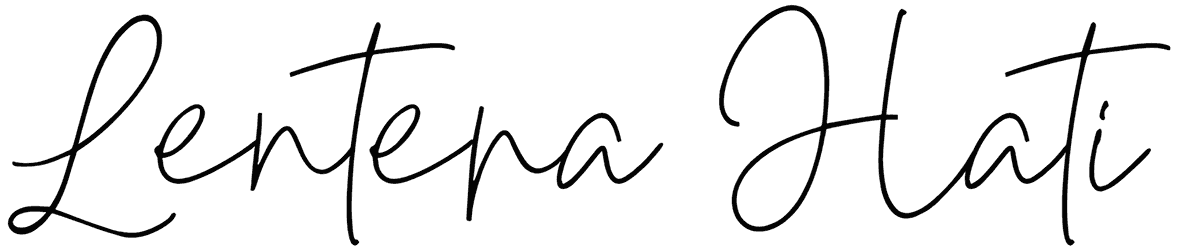
Lentera Hati Font
Lentera Hati is a custom handwritten font guaranteed to make your designs stand out from the crowd. This script font looks good on t-shirts, logotypes, book covers, and any other personal project that needs a warm and friendly theme. This has caused many designers to ignore the illegibility of this human handwriting and go to Lentera Hati to implement their most unique writing.